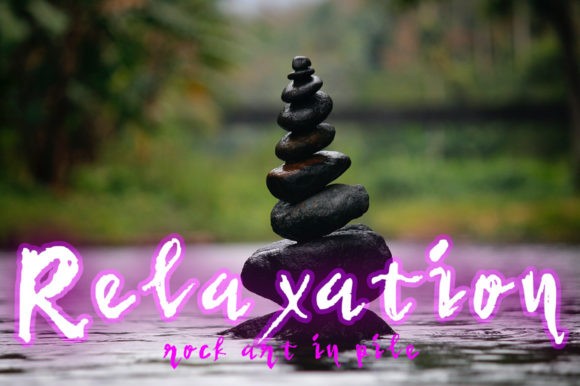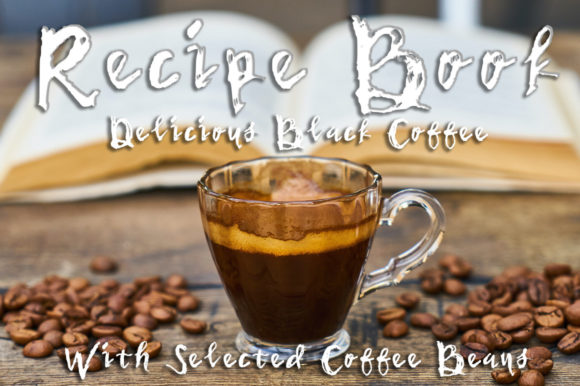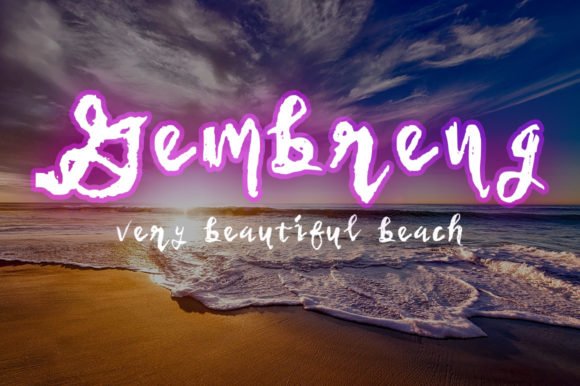
Introduction to Gembreng Font
Gembreng is a beautiful and neat display font, perfect for making your designs stand out from the crowd.
Its characters are fit for wall displays, wedding invitations, social media post logos, advertisements, product packaging, product designs, labels, photography, watermarks, invitations, stationery, and any project that requires modern typography .
Gembreng Font offers exceptional quality and versatility, making it a valuable addition to your design toolkit. Whether you’re creating for personal projects or commercial use, Gembreng Font delivers professional results.